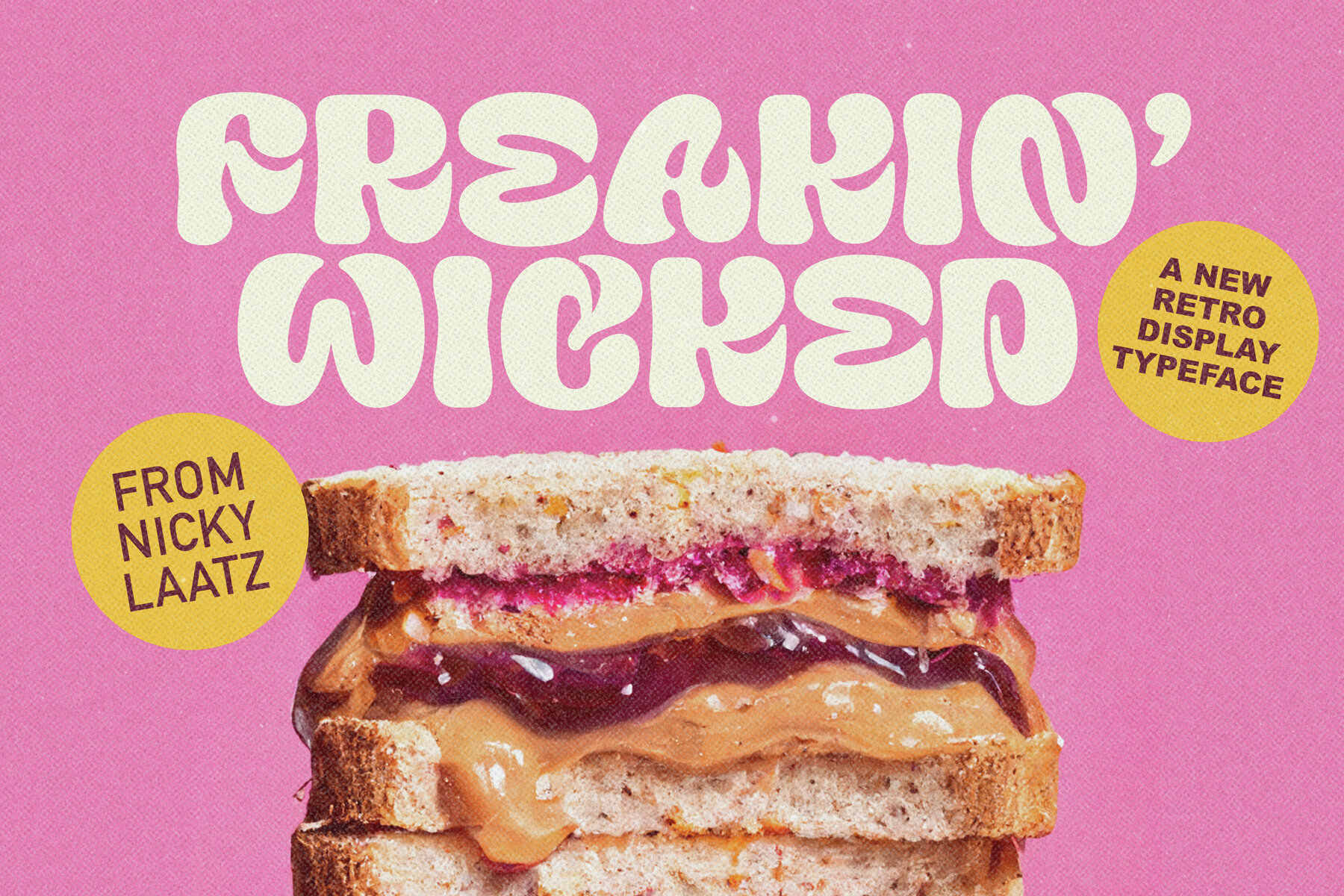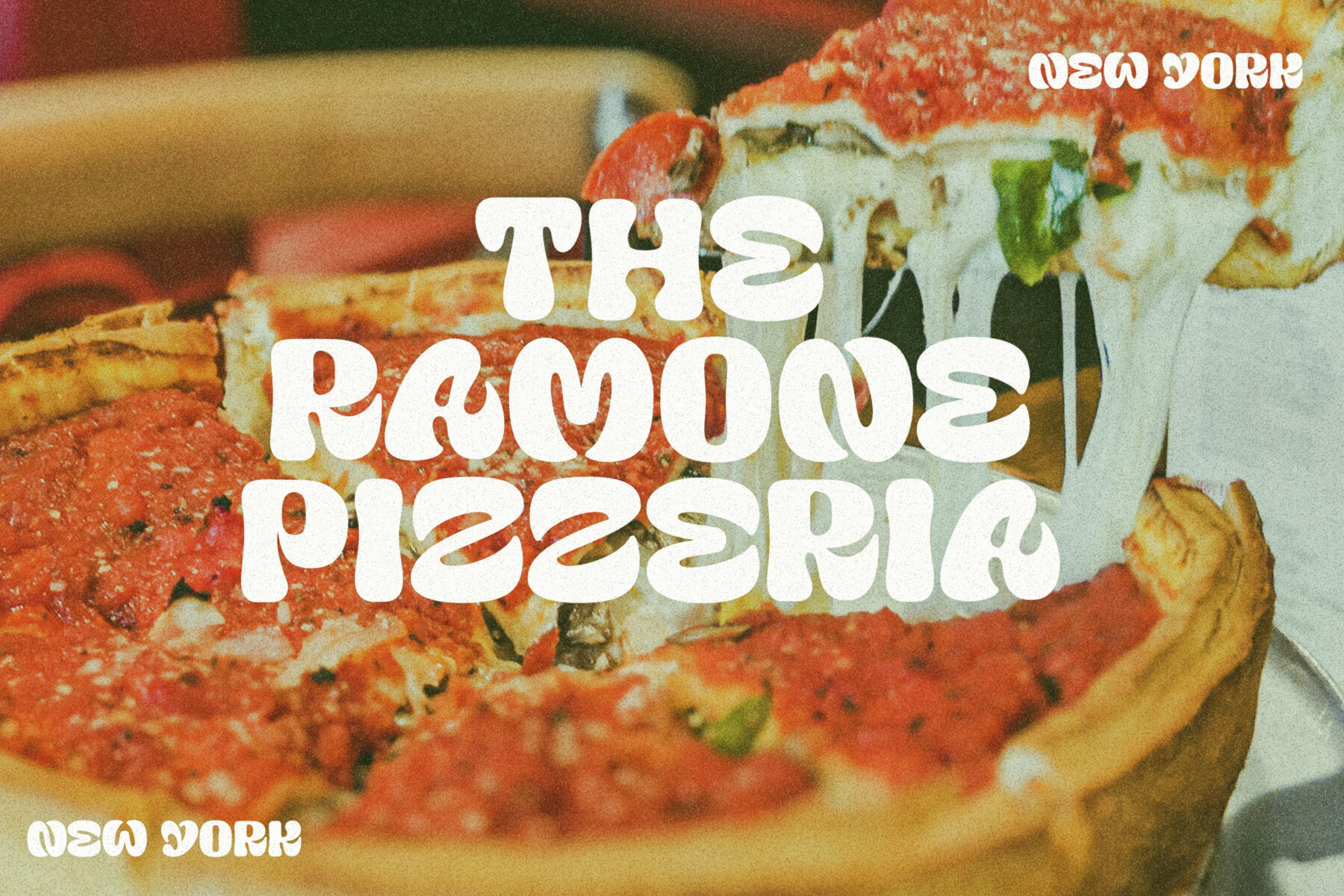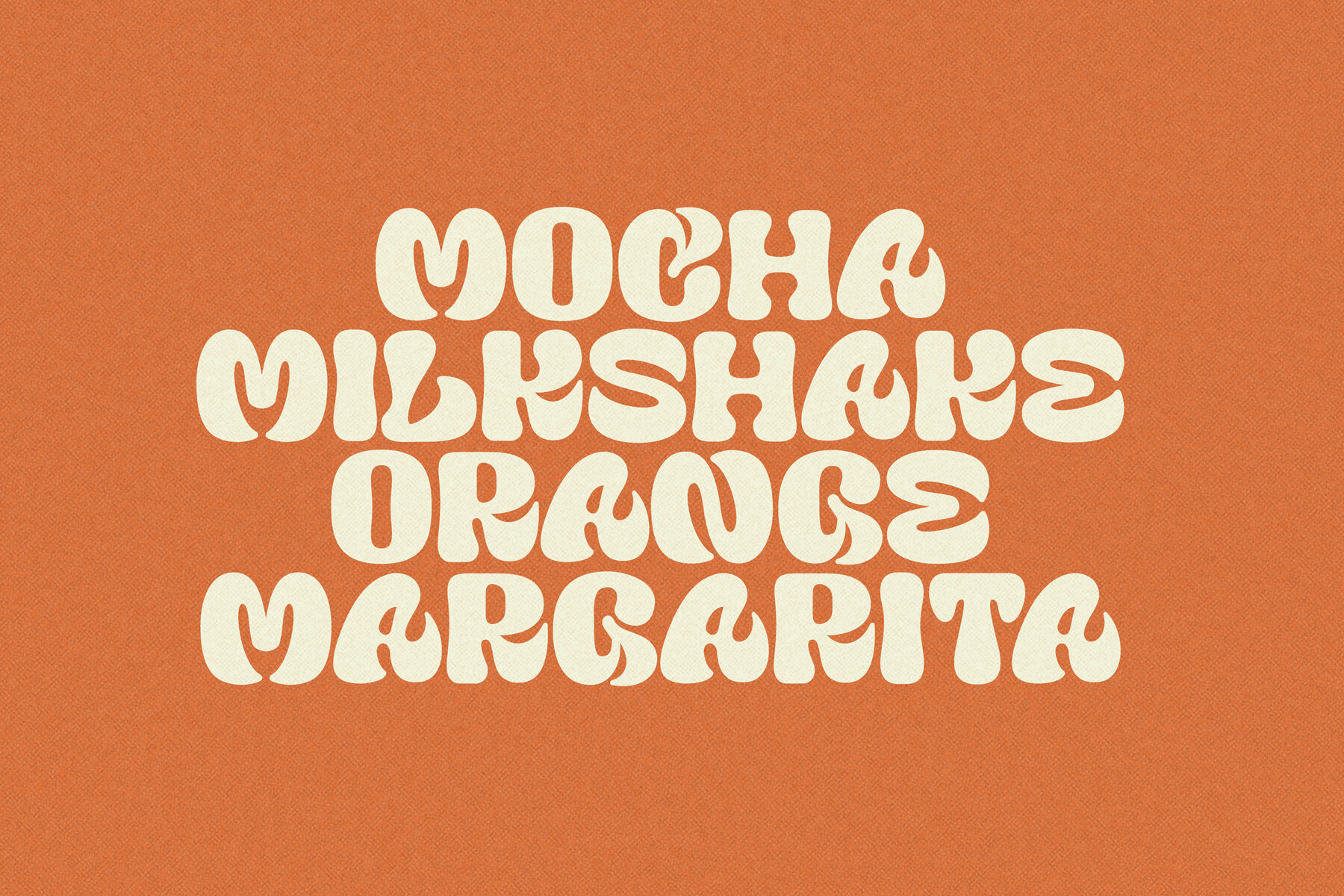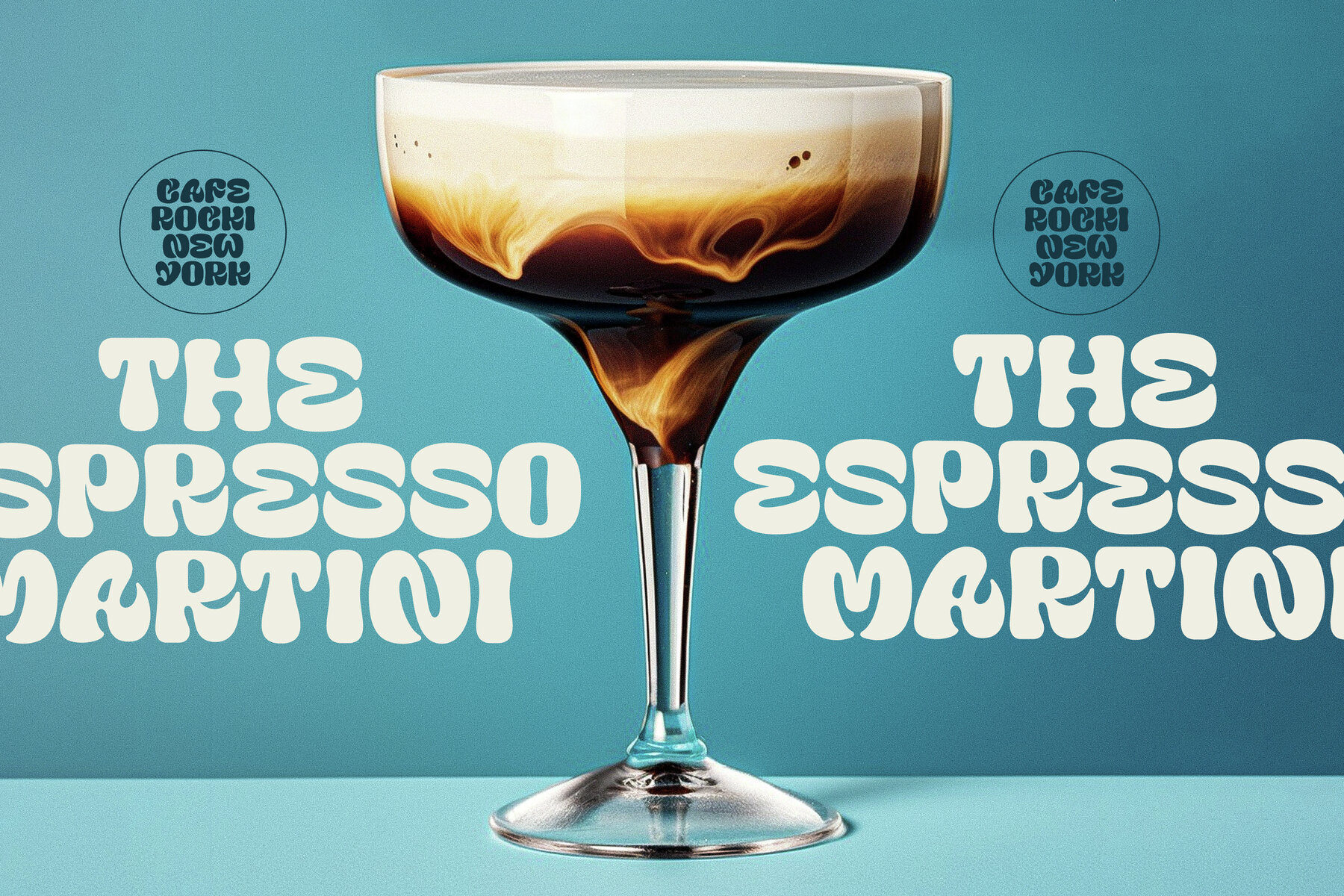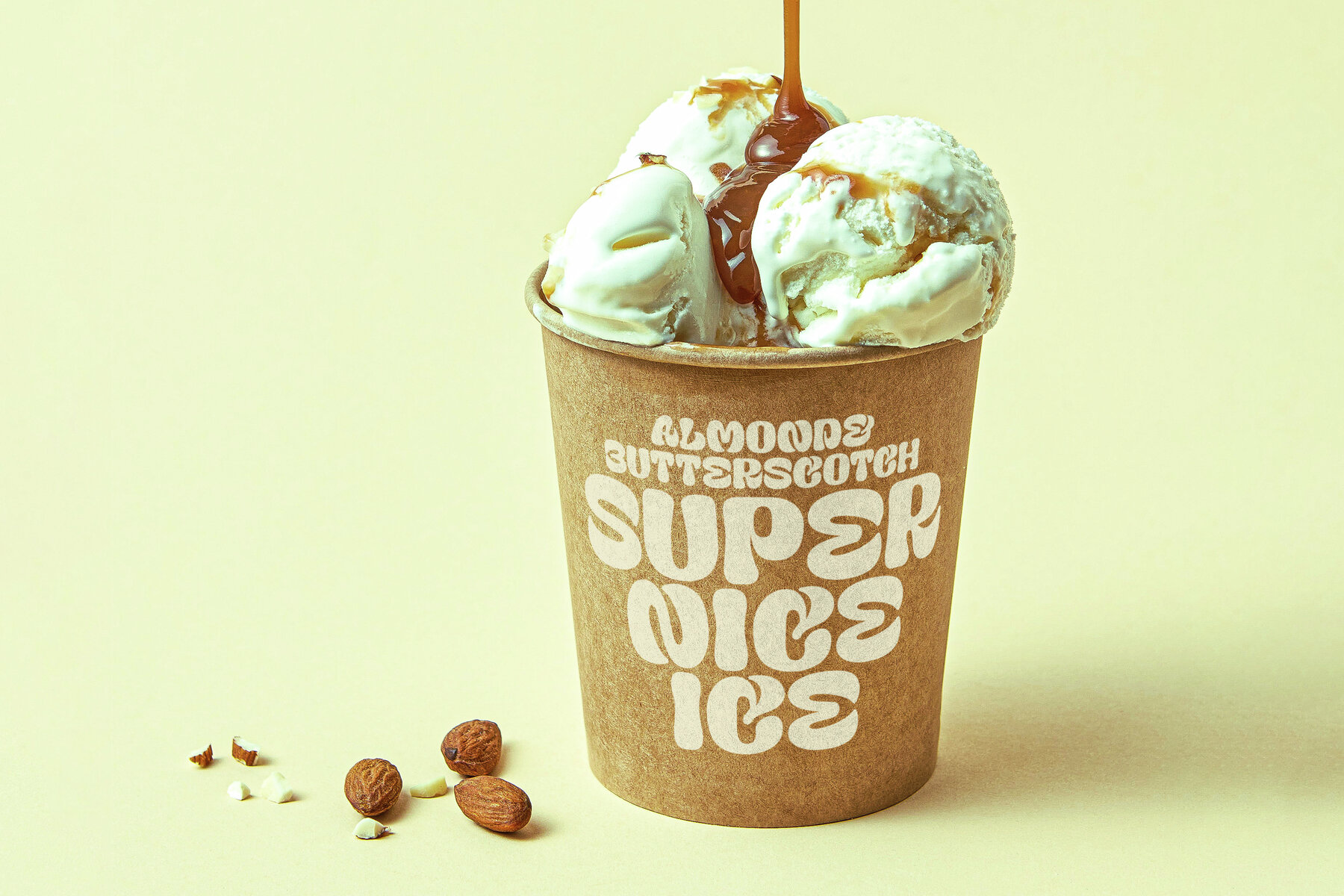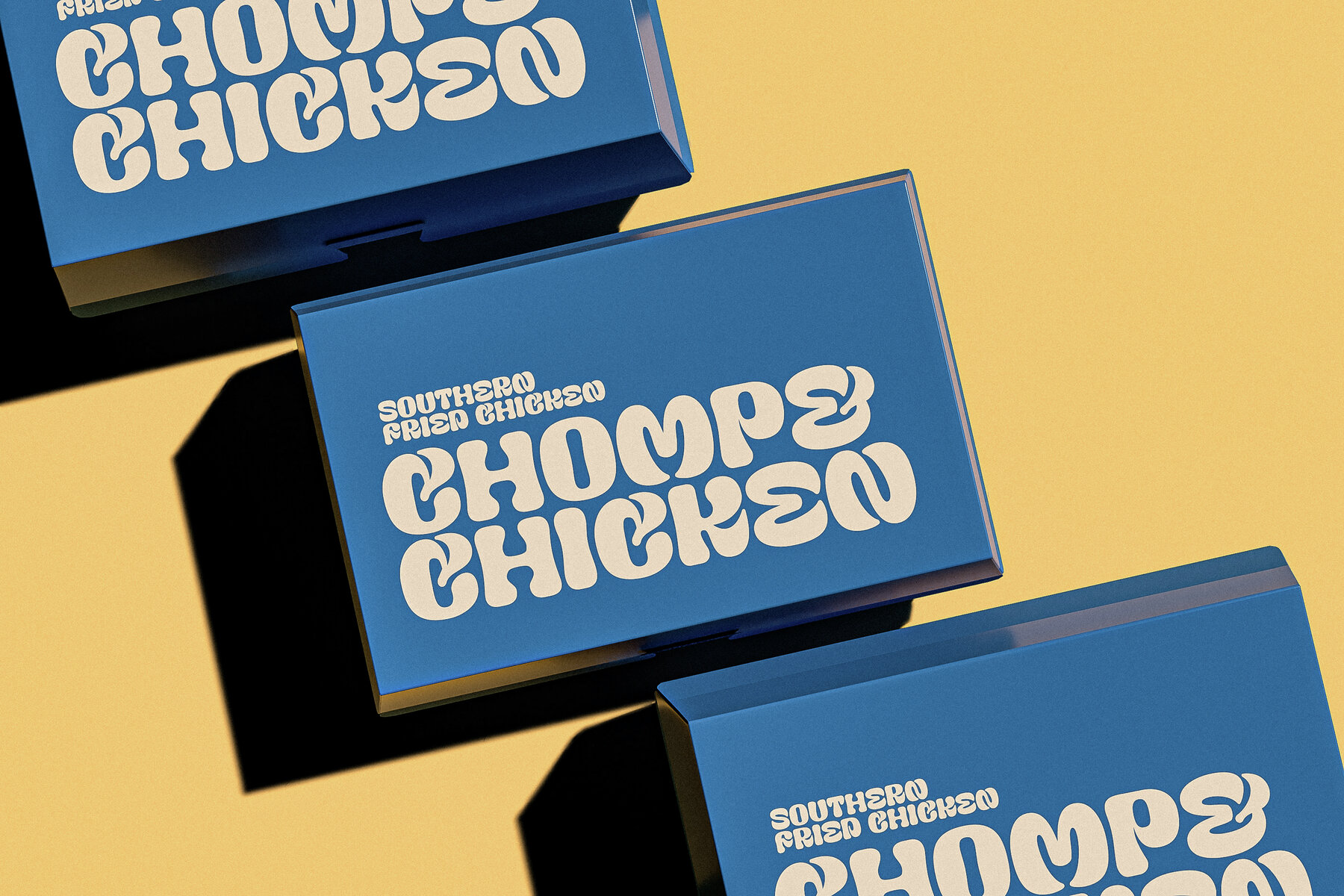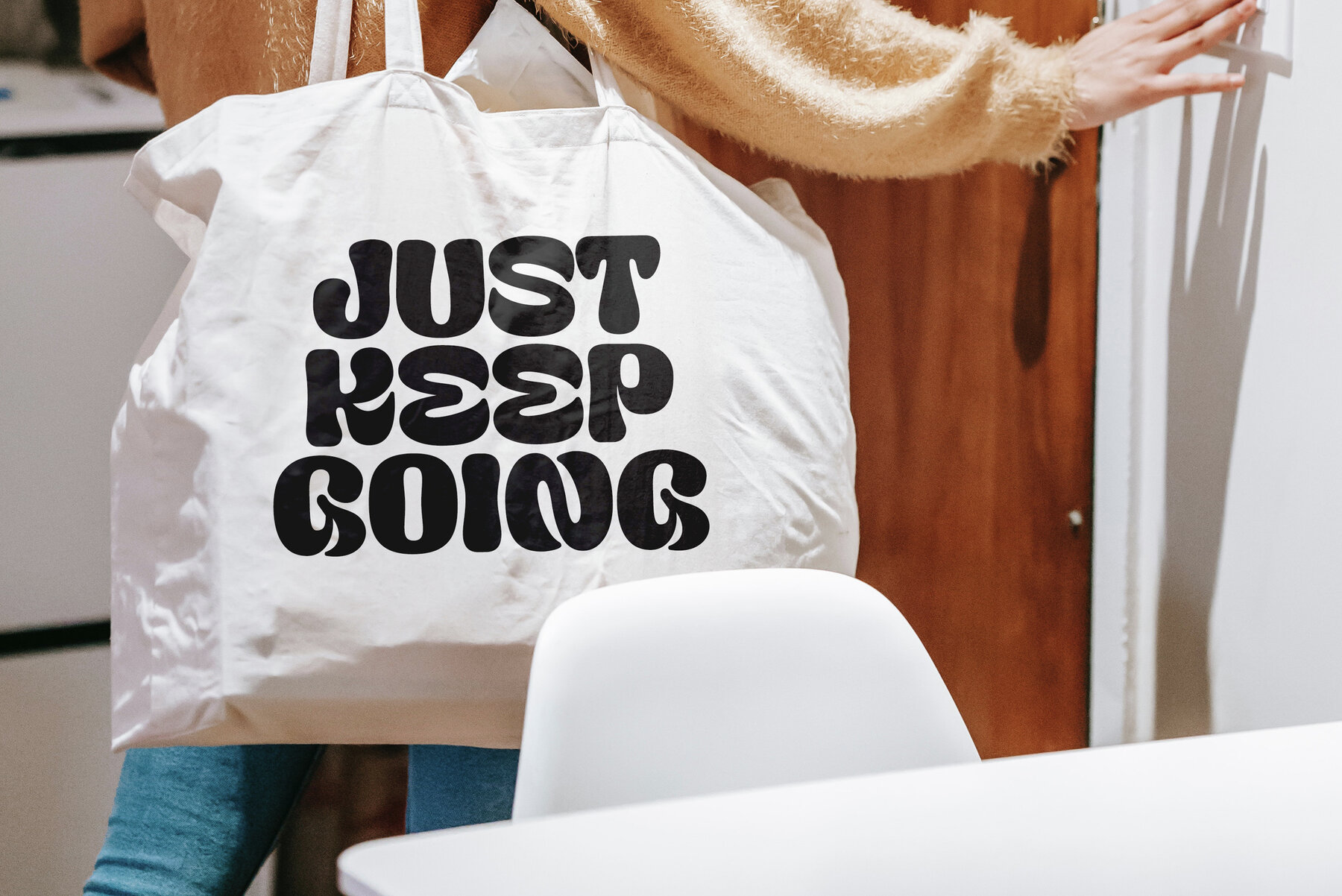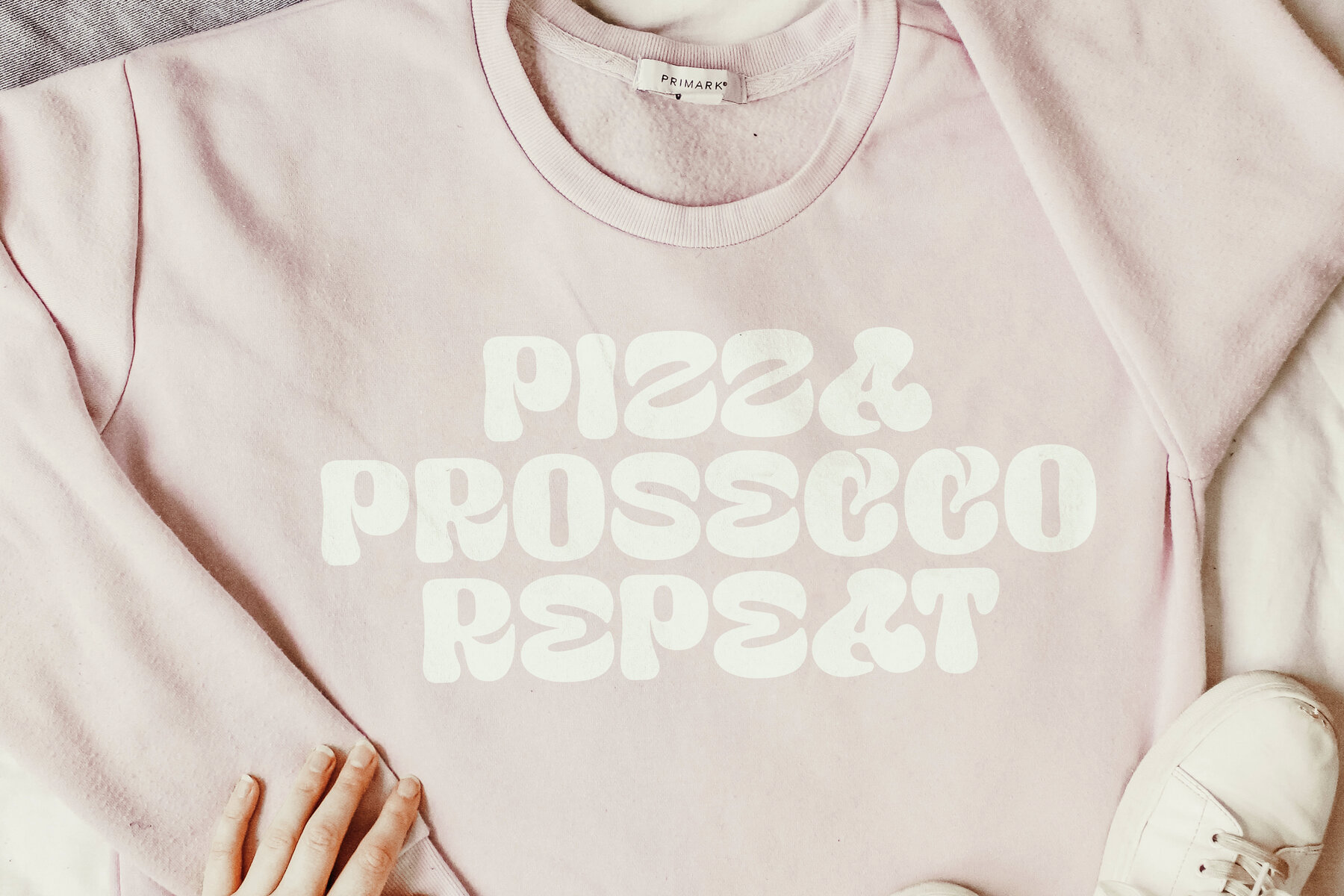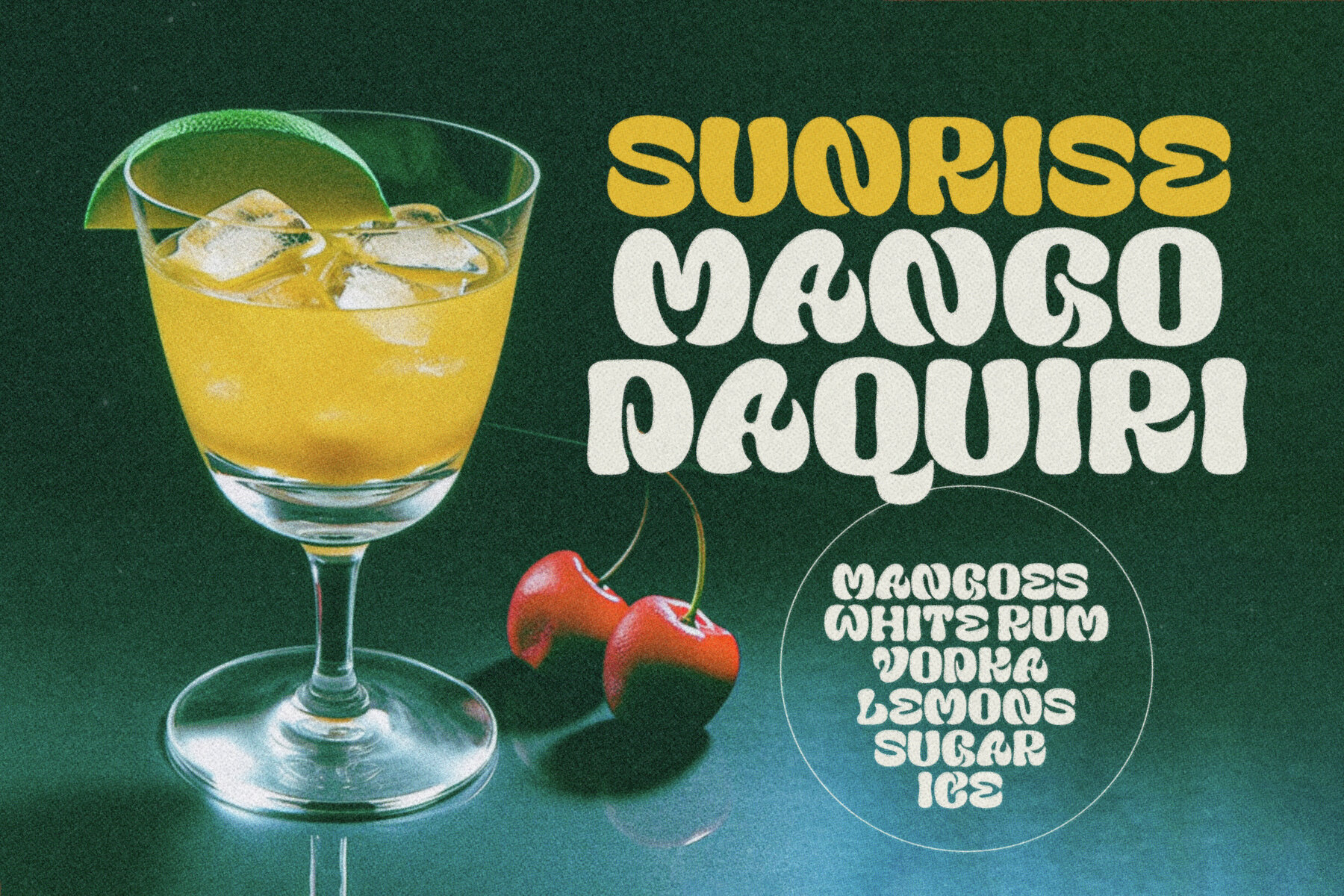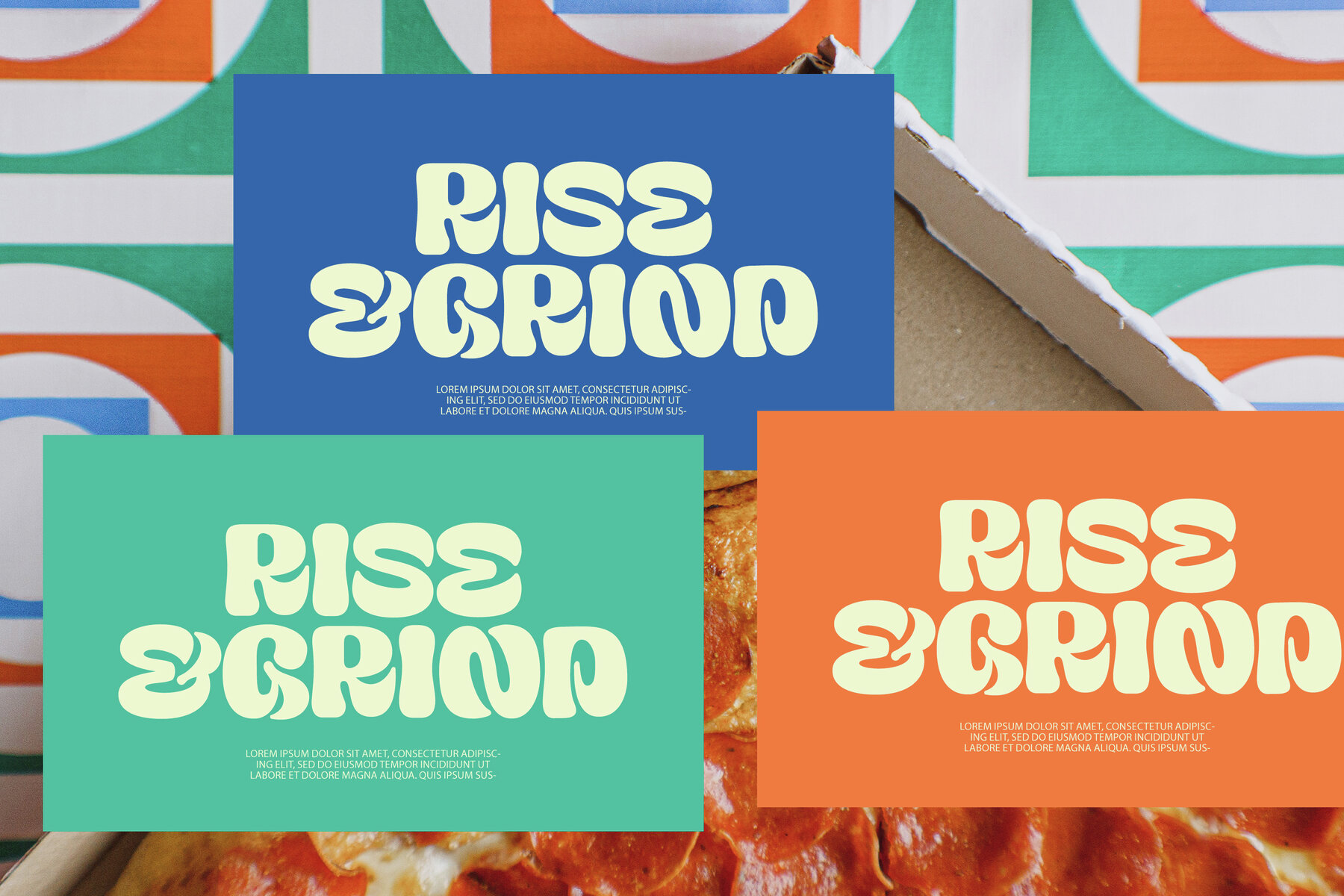
Freakin Wicked Font
Freakin Wicked Regular
Looking to infuse a dash of quirky charm into your projects? Introducing the revolutionary Freakin Wicked Display Font, designed by the artistic genius Nicky Laatz. This delightful blend of retro groovy charm and a subtle nod to the future is certain to bedazzle your audience. Strikingly bold, yet full of joy and whimsy, this font truly embodies its given name – 'Freakin Wicked'. With its phat shapes and weirdly wonderful curves, it's sure to stand out in any medium it graces. Exclusively sculptured for graphic designers and marketing firms, the Freakin Wicked Display Font goes beyond the bland and normal. It gives your overall design an aesthetic edge to captivate viewers. Its unprecedented style not only echoes nostalgia but also teases an avant-garde approach to typography. Remember, creativity, after all, is all about breaking cliches and making an impression. And Freakin Wicked Display font does just that – it’s not only a font, it’s a creative statement, a visual treat, a conversational starter to engage your audience.The Eccentric Brilliance of the Freakin Wicked Display Font